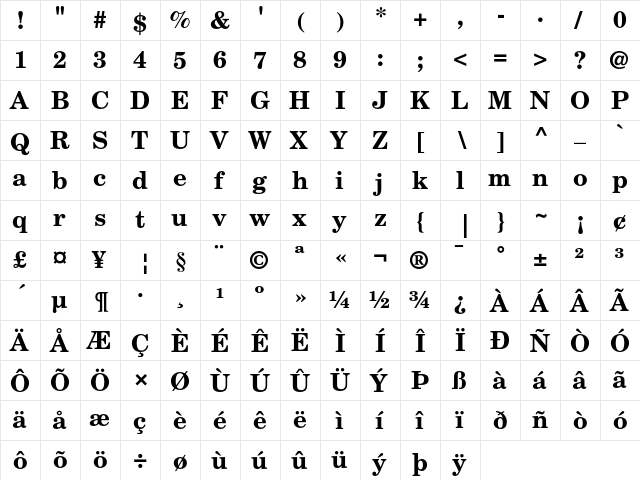
New Century Schoolbook Bold
Design Context for New Century Schoolbook Typeface
New Century Schoolbook is a composed and adaptable typeface that performs quietly and consistently across a wide range of design contexts. The heavy weight commands attention and anchors typographic hierarchies.
Pro Tip: Pair New Century Schoolbook with a font of contrasting weight or personality to build a more expressive typographic hierarchy.